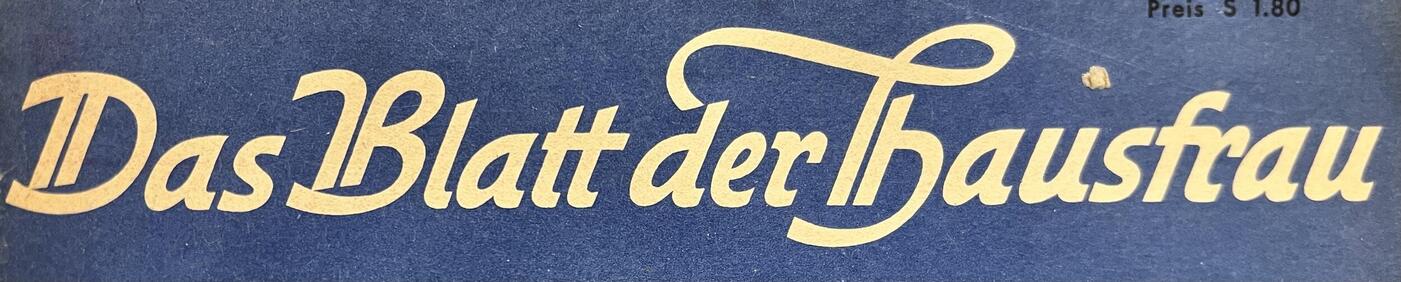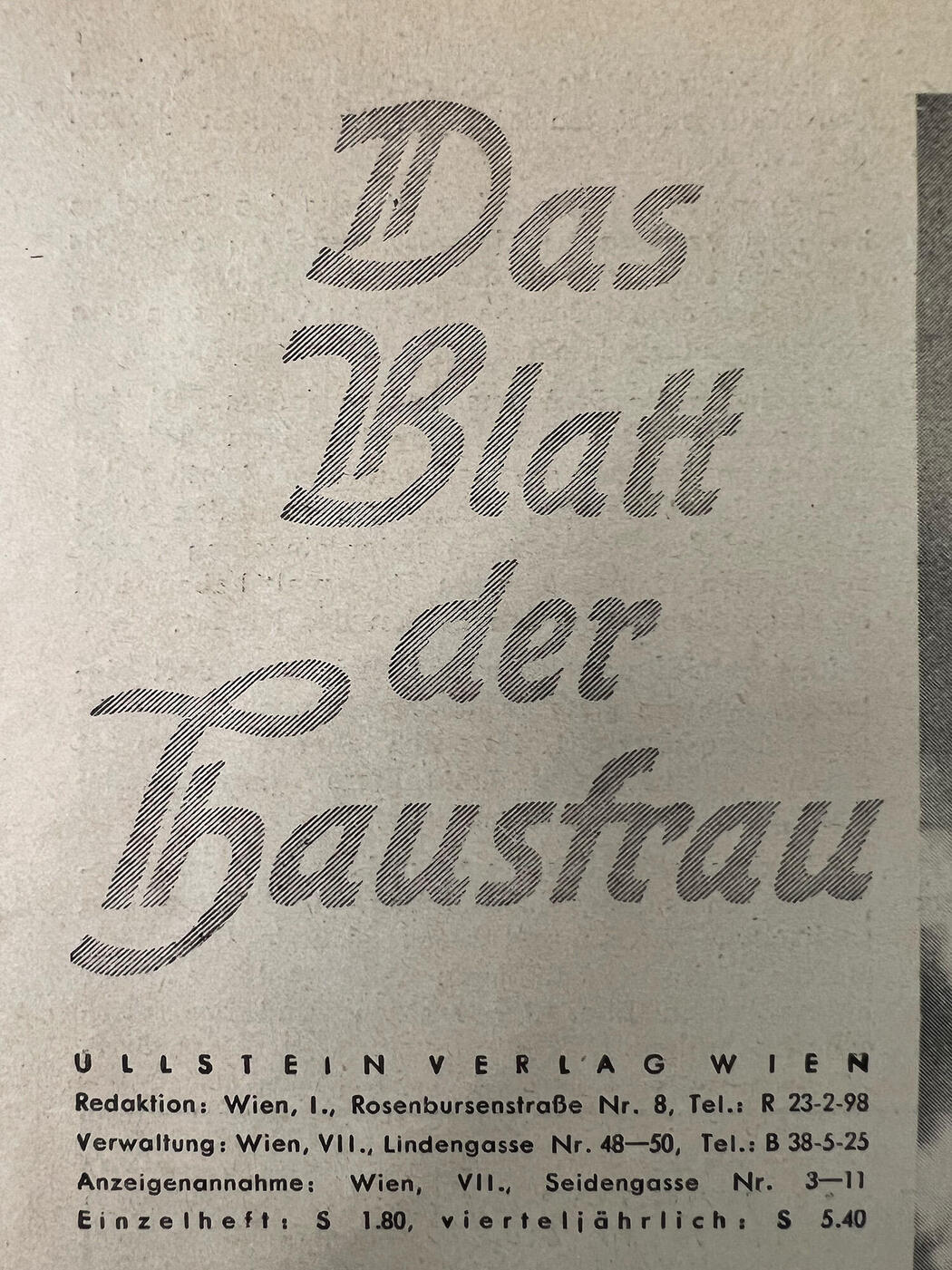
Title font "Das Blatt der Hausfrau", 1948, Austria
I’m looking for the typeface used as the title font for the home and fashion magazine Das Blatt der Hausfrau from 1948 (I have a copy from that year—there were other title fonts used in different years, but those aren’t what I’m interested in here). This issue was published by Ullstein Verlag Wien and was most likely printed at the Waldheim-Eberle printing house. As far as I understand, it was not offset-printed, but letterpress-printed. I photographed the lettering shown here from my copy.
I’m looking for a digital version of this font, or one that’s very, very similar. The lowercase “a” and “r” in particular should match the original. Alternatively, I’d also be interested in images showing additional characters.
I’d like to use or recreate this font for a logo, and I’m primarily looking for the uppercase “C,” but also the lowercase “p” and “i". I know you can figure them out to some extent from the existing material, but I’d really like to see the shapes that actually belong to the font.
Hello Ralf, thank you for the quick reply! Yes, I had also already suspected that the swashes on the uppercase “H” couldn’t have been set as individual glyphs. Inside the magazine, there is another version set differently, where the type is printed with a hatched shading, but the letterforms (the upercase “H” is different here) are otherwise the same. That made me hope that there might still be a fully designed typeface that served as the basis for the lettering of the title.